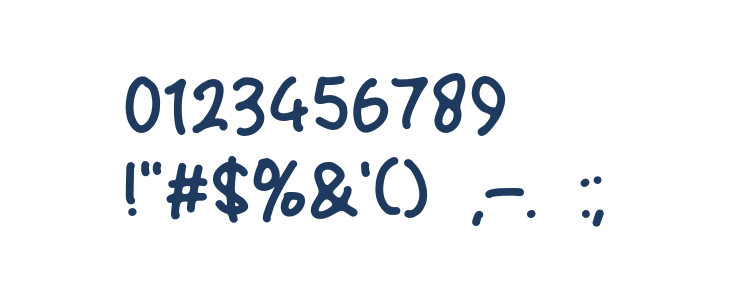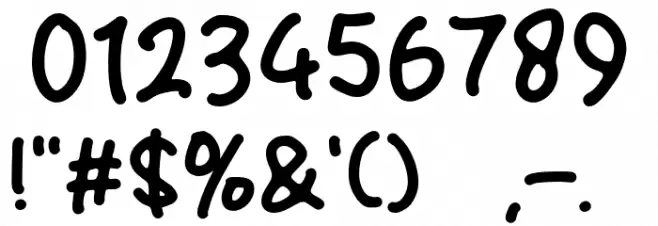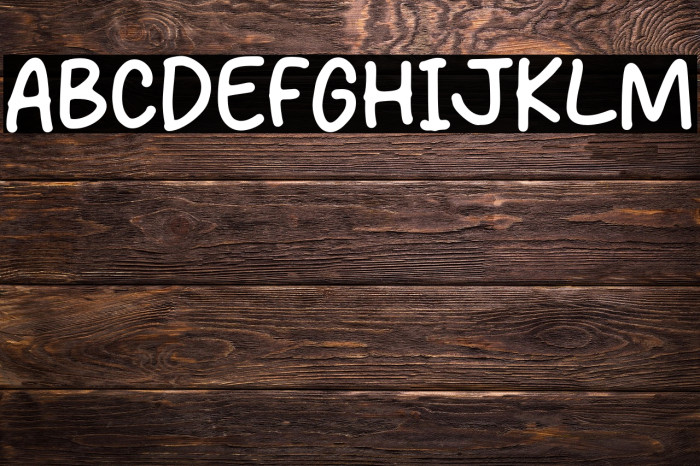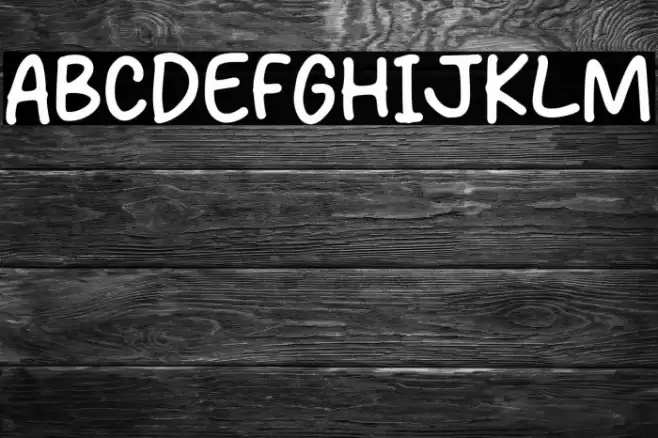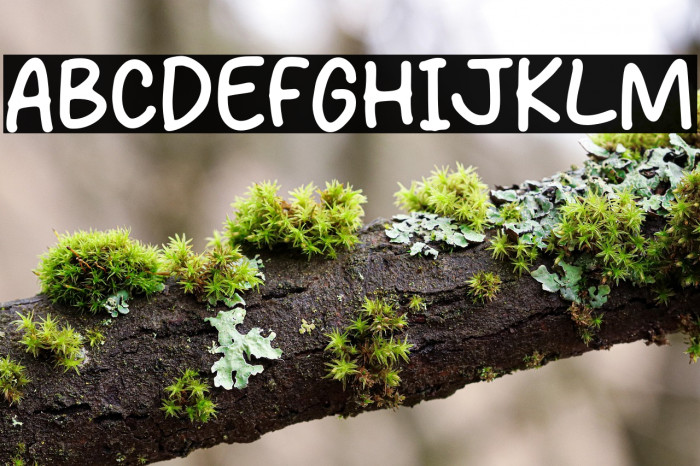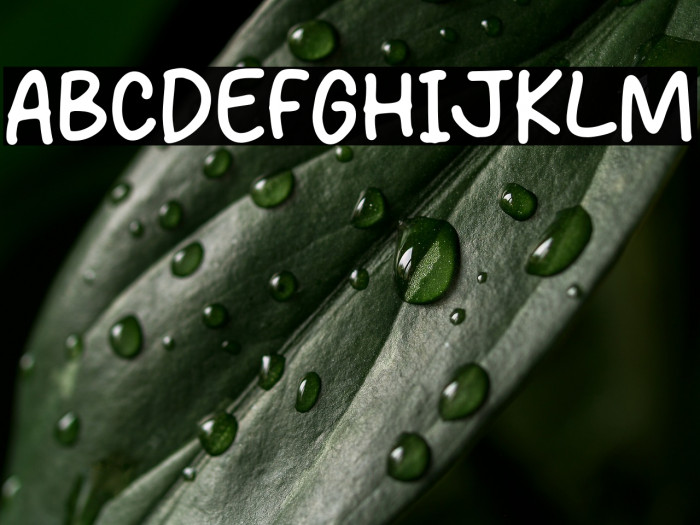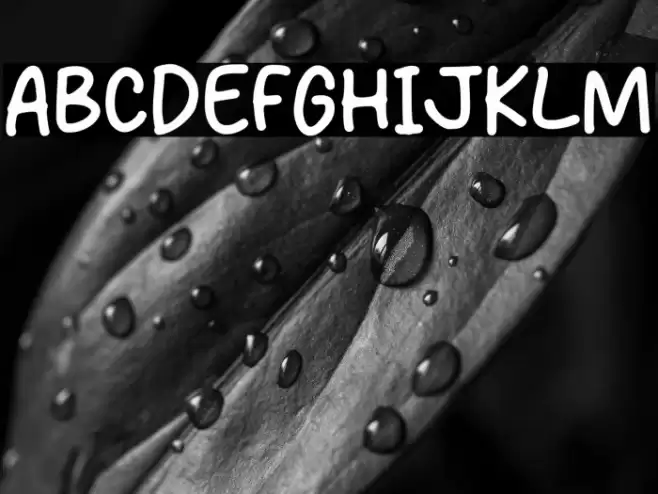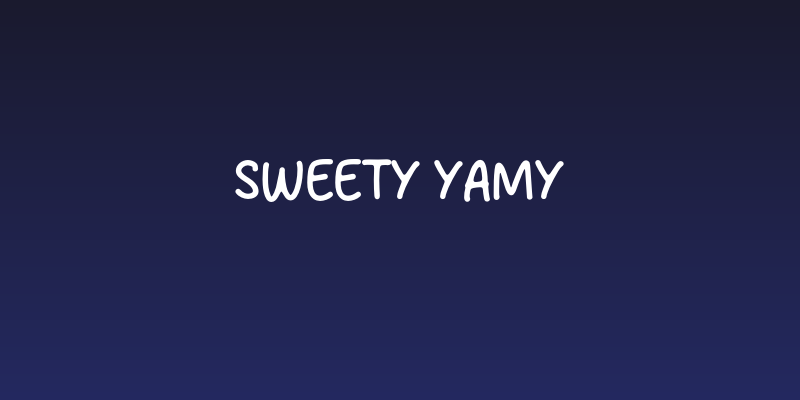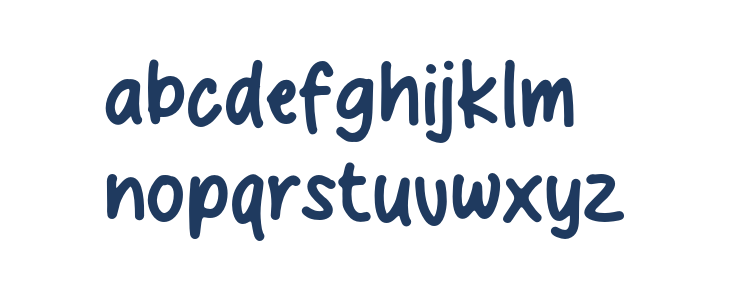
Sweety Yamy Font
Sweety Yamy Description
This playful and whimsical font features rounded, bold characters with a hand-drawn appearance. The letters are slightly irregular, adding a charming, informal touch. The uppercase and lowercase letters maintain a consistent style, with smooth curves and a friendly demeanor. Numbers and special characters are equally bold and rounded, fitting seamlessly with the alphabet. The overall look is casual and approachable, making it suitable for projects that require a personal, friendly touch.
| Proposed Projects | Ideal for children's books, greeting cards, playful branding, and casual invitations. |